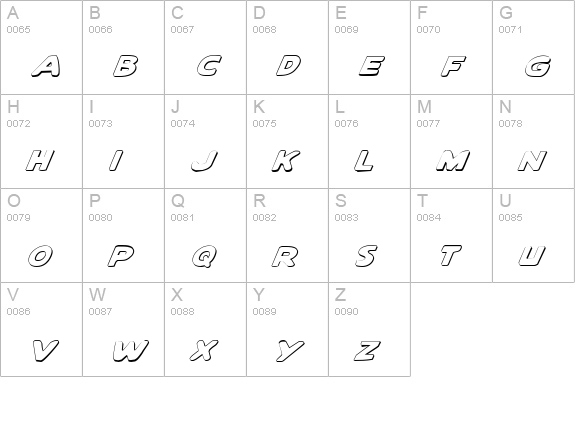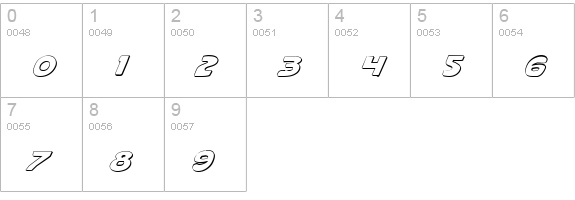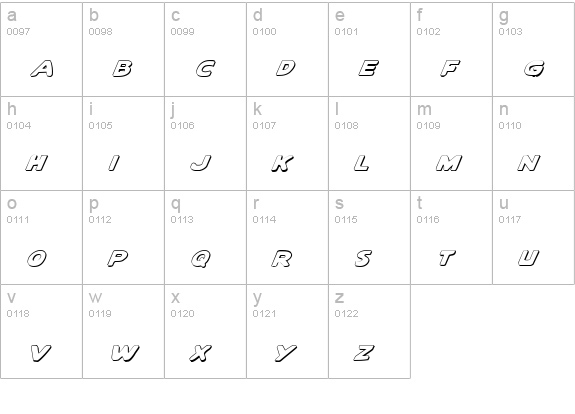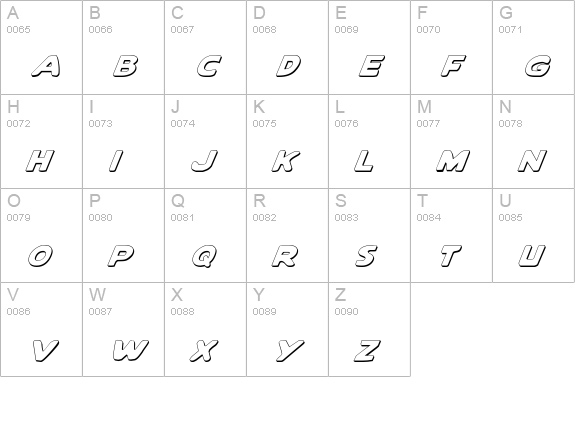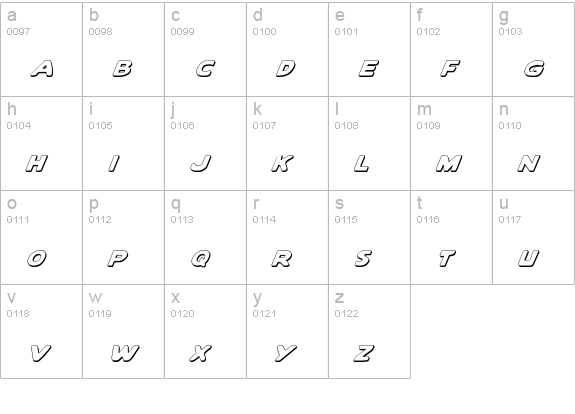
Quartermain Outline Italic Font Details
Quartermain Outline Italic is a distinctive, italic variant in the Quartermain typeface family \xE2\x80\x94 well suited to design and typography projects.
Introducing Quartermain Outline Italic, a striking and captivating font that effortlessly blends modernity with a touch of elegance. This font is the perfect combination of boldness and sophistication, making it ideal for a wide range of creative projects. With its sleek and slender outlines, Quartermain Outline Italic commands attention and adds a unique flair to any design. Its italicized form brings a sense of dynamism and movement, giving your text a lively and energetic appearance. Not only does Quartermain Outline Italic exude style and personality, but it also offers versatility. Whether you're designing a logo, crafting eye-catching headlines, or creating stunning invitations, this font is sure to leave a lasting impression. One of the greatest features of Quartermain Outline Italic is that it is completely free to download. Yes, you read that right! This remarkable font is freely available at FontsMarket.com, allowing you to unleash your creativity without breaking the bank. Now, you can elevate your designs with a high-quality font without the hassle of purchasing licenses. Don't miss out on the opportunity to make a statement with Quartermain Outline Italic. Download it today from FontsMarket.com and see how this font can transform your projects from ordinary to extraordinary.